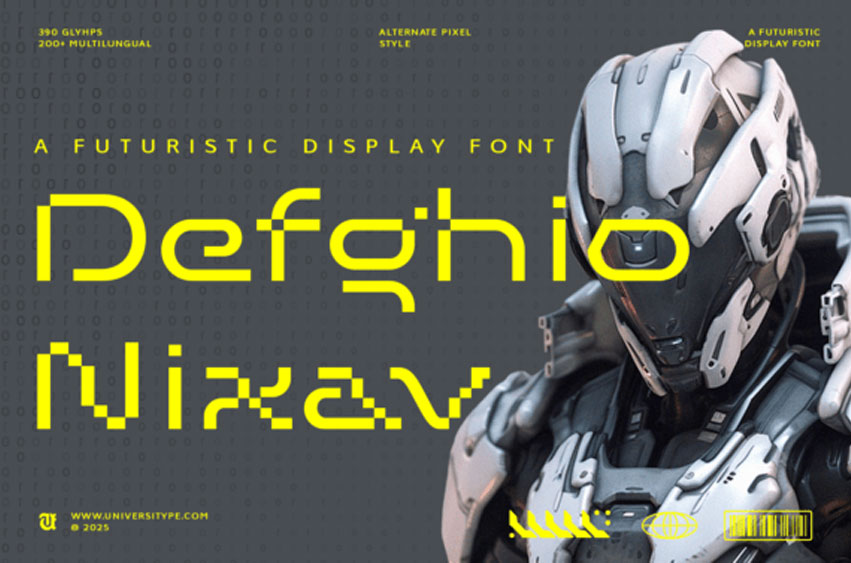
Ut Defghio Nixav Font Immerse yourself in the future of graphic design with UT Defghio Nixav, a unique, forward-thinking display font that blurs the boundaries between technology and art. This striking, ultra-modern typeface has been specifically crafted to bring a distinctive, high-tech texture to your projects, merging minimalist aesthetics with a strong geometric presence that confidently demands attention.
UT Defghio Nixav brilliantly embodies the spirit of futuristic design, using crisp, angular elements, subtle asymmetry, and intelligent use of negative space to deliver an enigmatic, space-age mood. Destined for pioneers in tech, sci-fi, gaming, and digital art, it creates a perfect synergy between today’s innovation and tomorrow’s possibilities.
UT Defghio Nixav’s expansive assortment of over 390 glyphs and extensive multi-lingual support guarantees global accessibility, while its alternate pixel style offers an intriguing, pixelated twist for those craving a retro-futuristic vibe. The font’s sleek geometry and creative use of negative space heighten its technical sophistication, making it a dynamic addition to any design arsenal.
UT Defghio Nixav was conceived with an eye to the limitless potential of technology and human creativity. Threading inspiration from cutting-edge structures and the imaginative realms of sci-fi, this font epitomizes a future where art and technology merge in innovative harmony. More than just a font, UT Defghio Nixav invites you to step forward into the realm of endless opportunities in design and technology.
Whether you’re crafting intricate interfaces for high-tech apps, envisioning dystopian worlds in your games, developing avant-garde branding, or creating digital art and posters, UT Defghio Nixav ensures your work radiates an aura of futuristic sophistication. Available in OTF, TTF, and Webfont formats, and supporting all Latin-based scripts, UT Defghio Nixav is your passport to the future of design.